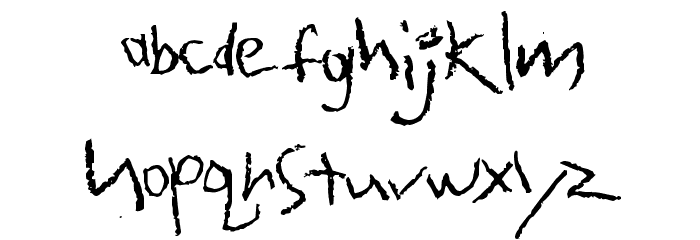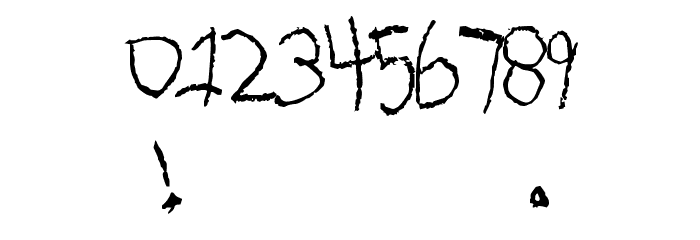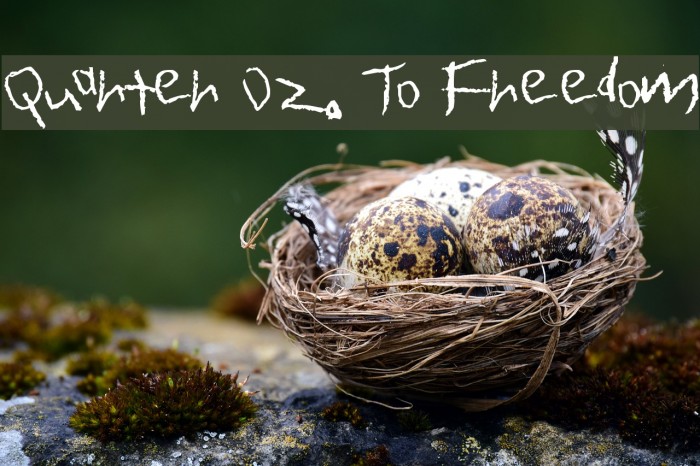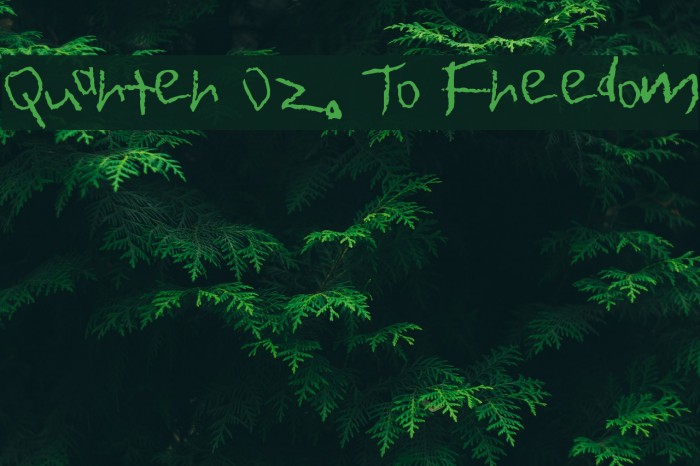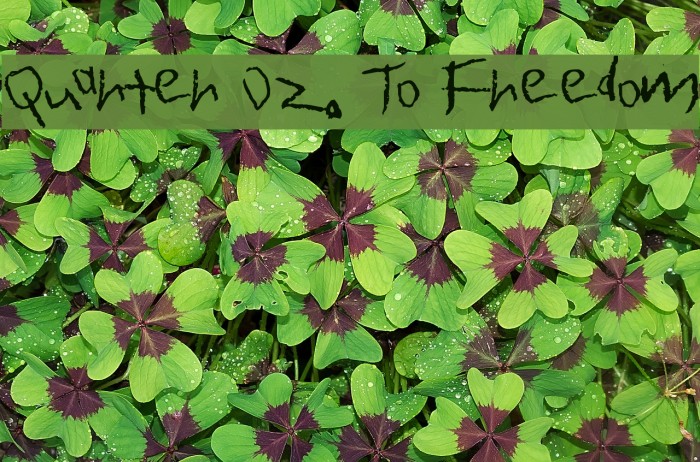
Quarter Oz. To Freedom Font
This font exhibits a raw, hand-drawn style with a rugged and organic appearance. The characters are irregular and have a textured, almost scribbled look, giving them a unique and artistic flair. The uppercase and lowercase letters maintain a consistent style, with jagged edges and varying stroke widths that suggest a casual, informal tone. Numbers and special characters follow the same aesthetic, contributing to a cohesive overall design. This font's distinctive character makes it suitable for projects that require a personal touch or an edgy, unconventional look.
A rugged, hand-drawn font with an organic, textured appearance.
- Proposed Projects: Ideal for album covers, posters, graffiti art, or any creative project needing an edgy, artistic touch.
- Use Case: Logos, Posters, Artistic projects